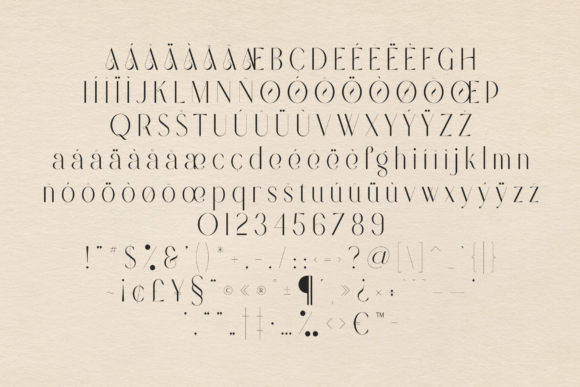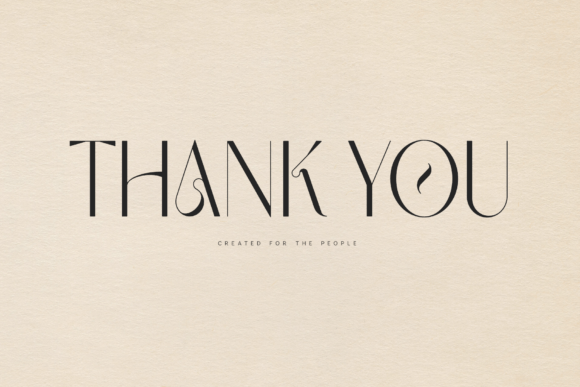
Introduction to Modern Heritage Font
As designers, we’ve all been there – staring at a blank page, trying to bring a creative project to life. The blank canvas can be intimidating, but it’s also an opportunity to showcase our skills and style. For those seeking to elevate their work, the Modern Heritage Font is an elegant serif display typeface that’s about to become your new best friend.
With its perfect blend of classic sophistication and contemporary design, the Modern Heritage Font is ideal for creating luxury branding, high-end editorial layouts, fashion logos, and elegant packaging. Its stylish character makes it perfect for projects where typography needs to stand out while still feeling refined and professional.
Key Features of Modern Heritage Font
- High-quality design resource ideal for creative projects, offering a sophisticated and elegant look.
- Unique characteristics include subtle vintage flair and clean lines, making it a versatile design resource for various creative projects.
Honest Review: Modern Heritage Font
As a designer, I’m always on the lookout for high-quality design resources that can elevate my creative projects. The Modern Heritage Font is one such resource that I recently stumbled upon, and I’m excited to share my thoughts on it.
- ✨ Elegant and sophisticated design that’s perfect for luxury brands or historical themes
- ✨ High-quality glyphs that render beautifully on transparent backgrounds
- ✨ Versatile font that can be used for both digital and print projects
- ⚠️ Limited character set, which may not be suitable for languages with complex scripts
- ⚠️ May require additional styling to achieve the desired look in certain applications
Overall, I’m impressed with the Modern Heritage Font’s elegant design and versatility. While it may have some limitations, it’s an excellent addition to any designer’s toolkit, especially for those working on high-end or historical-themed projects. I’d definitely recommend it to fellow designers looking for a high-quality, free design resource.
The Modern Heritage Font is a high-quality, versatile font perfect for creative projects. It features a unique blend of modern and classic elements, making it an excellent choice for designers looking to add a touch of sophistication to their work.
The Modern Heritage Font is perfect for a variety of design projects, including business cards, brochures, and website headers. It’s also a great choice for creating custom graphics, logos, and other design elements.